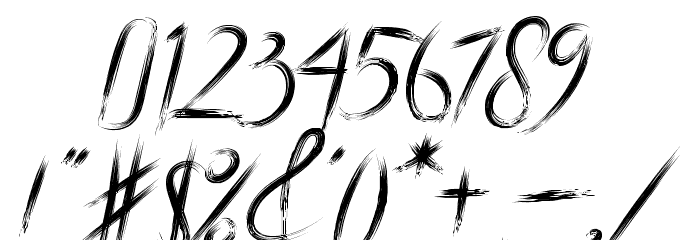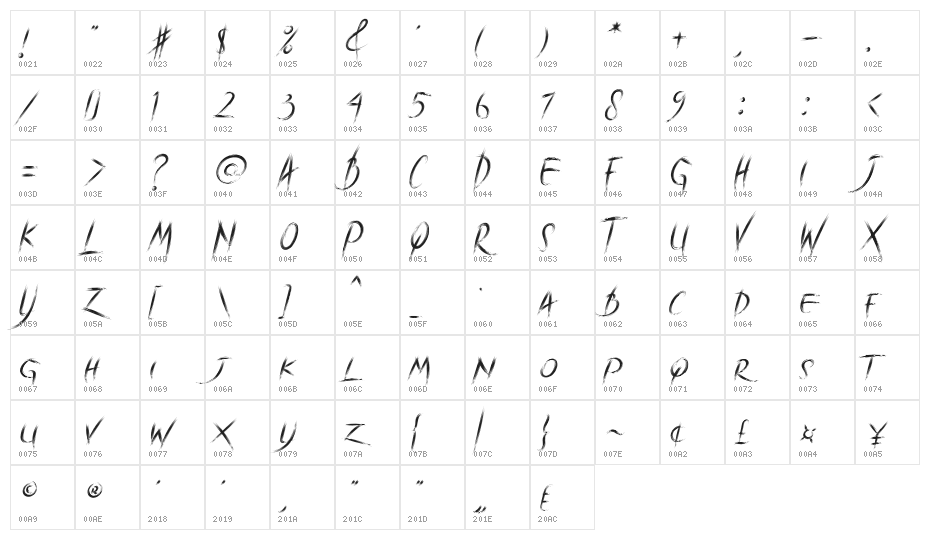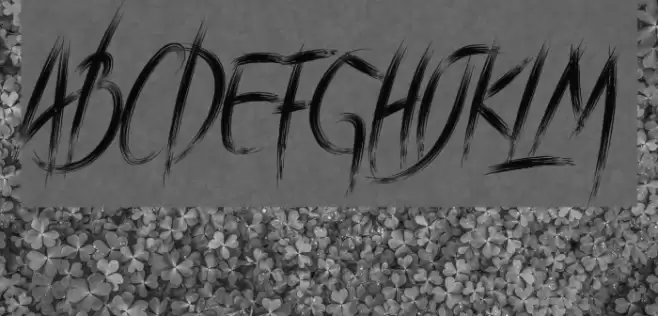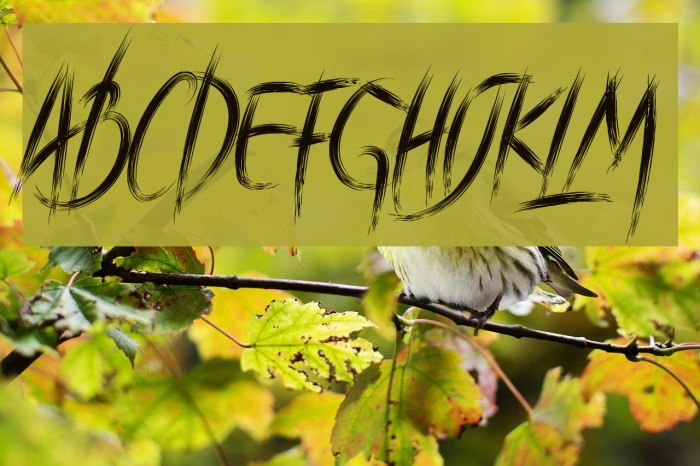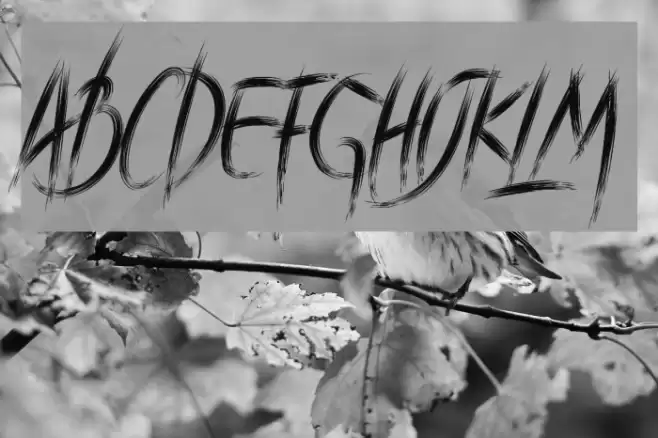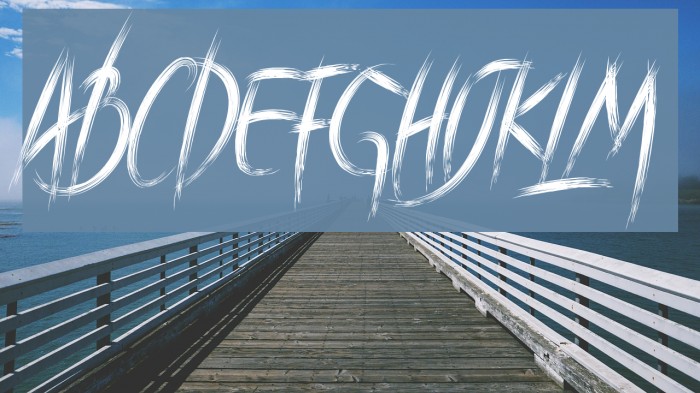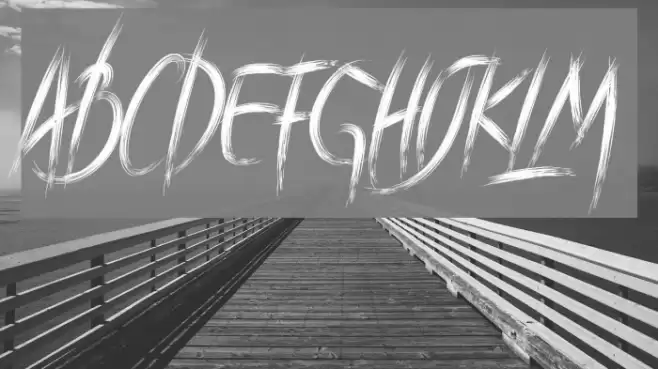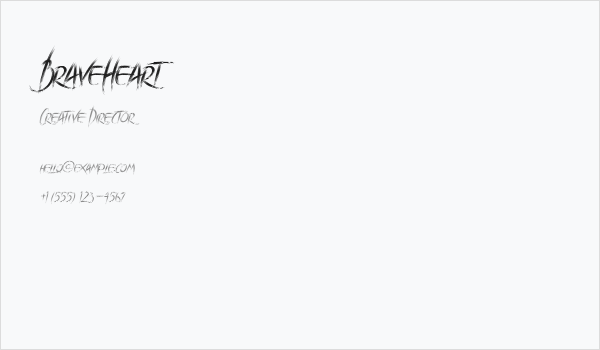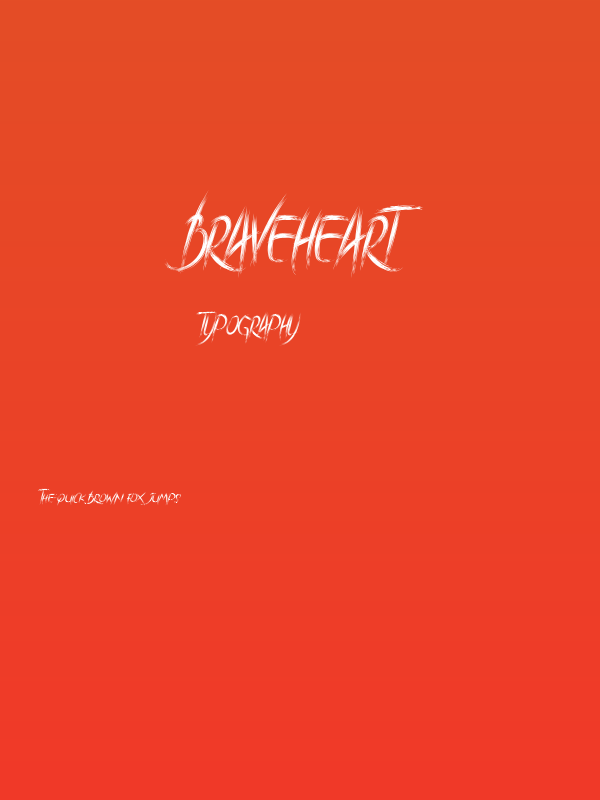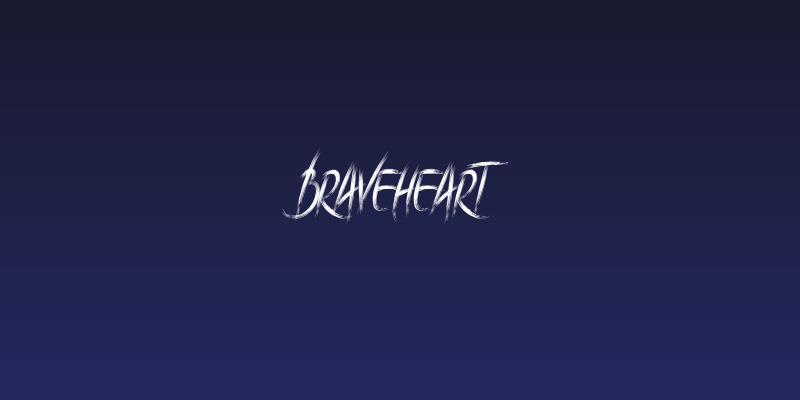
BraveHeart Font
BraveHeart Description
This font features a dynamic and edgy design, characterized by sharp, angular strokes that give it a sense of movement and energy. The letters are crafted with a brush-like texture, adding a raw and artistic feel. The uppercase and lowercase letters maintain a consistent style, with elongated forms and a slightly condensed appearance. Numbers and special characters follow the same aesthetic, ensuring a cohesive look across all elements. The font's unique style makes it stand out, ideal for projects that require a bold and expressive typeface.
| Proposed Projects | Ideal for music album covers, movie posters, graffiti art, and any project needing a bold, expressive typeface. |